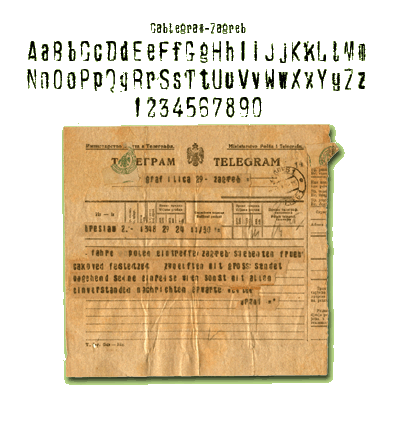
This font is based on two different telegrams: the uppercase alphabet is from an Algerian telegram from 1903, and the lowercase is from a Yugoslavian telegram from 1915.